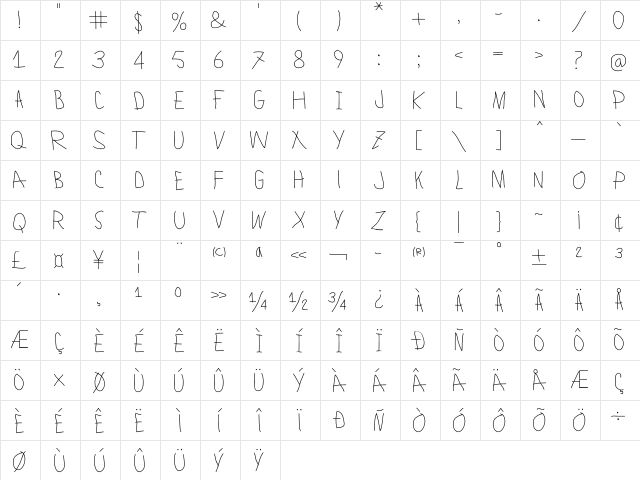
Lamiar Light Free Font
Lamiar Light
Foundry: Julia Martinez Diana, Antipixel.
Designer: Julia Martinez Diana, Antipixel.
Design Context for Lamiar
Lamiar is a composed and adaptable typeface that performs quietly and consistently across a wide range of design contexts. Its slender proportions lend an understated elegance to any composition.